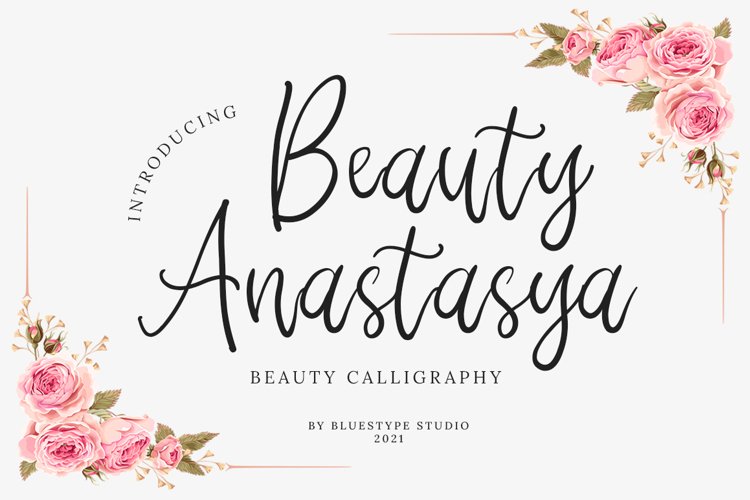
This is our newest product called Beauty Anastasya. Beauty Anastasya is a sweet and simple Calligraphy with a romantic feel. Fall in love with its raw authenticity!
This font is suitable for use on branding. calligraphy, weddings, t-shirt designs, logos, magazines, quotes, fashion, watermarks, invitations.